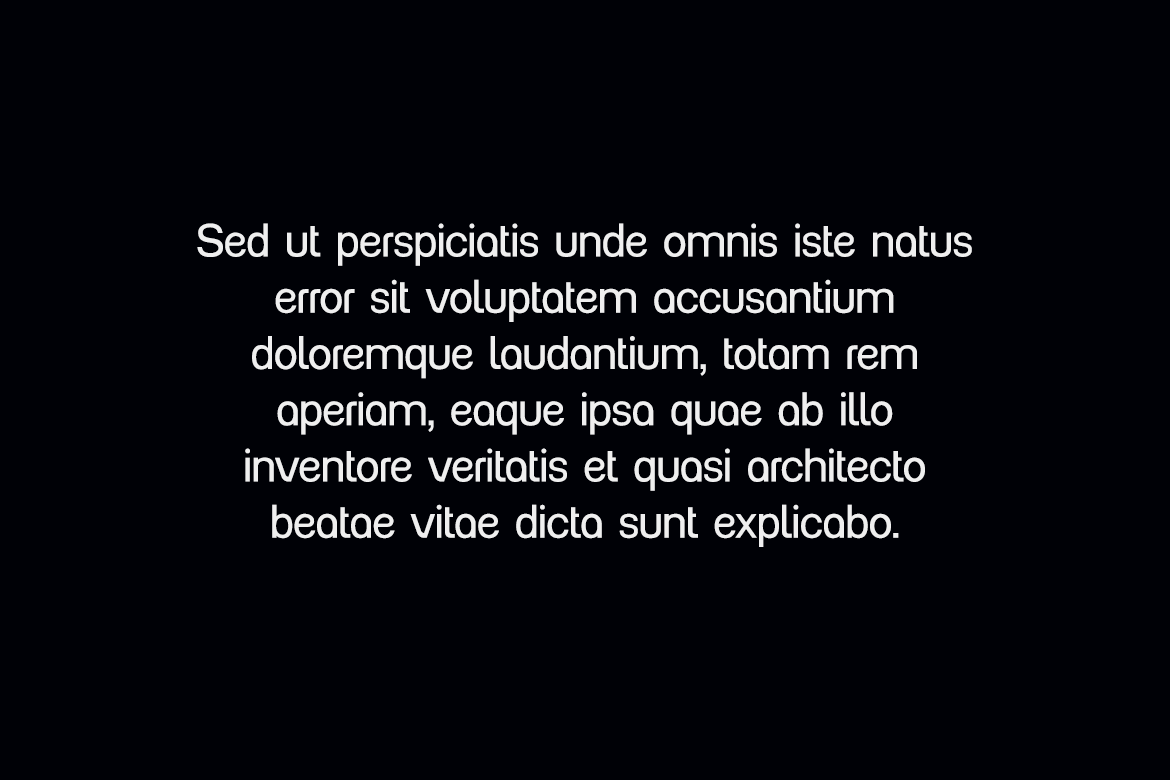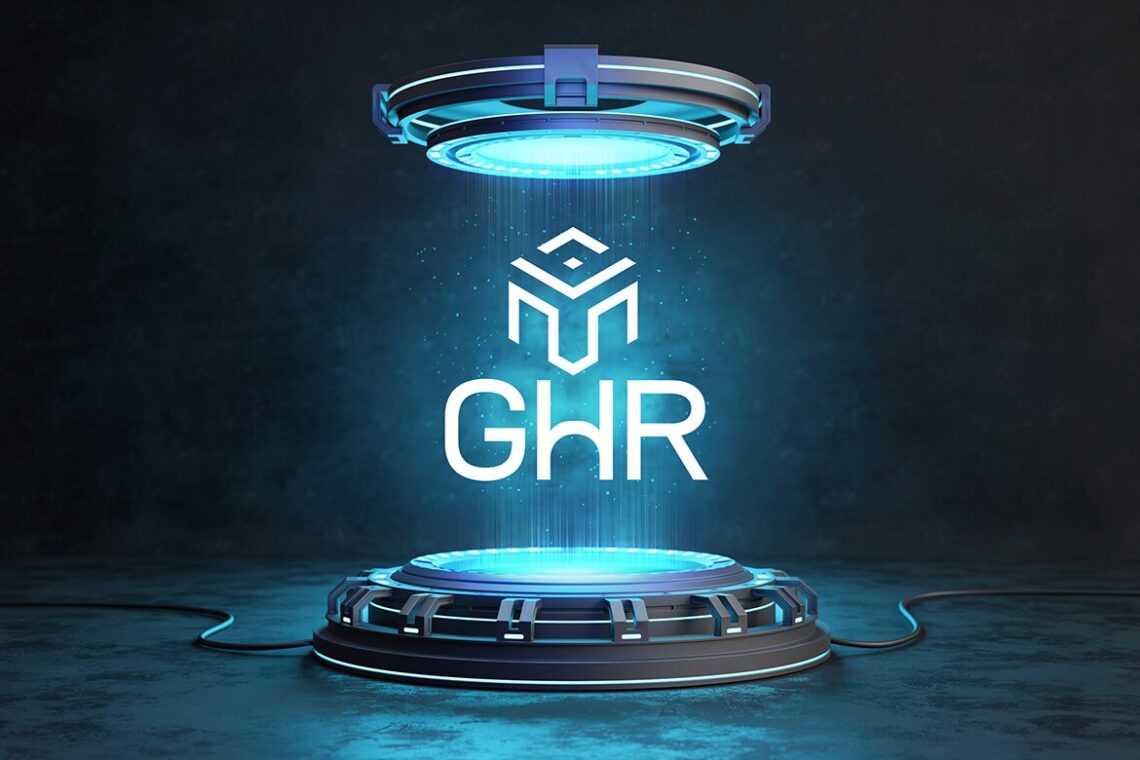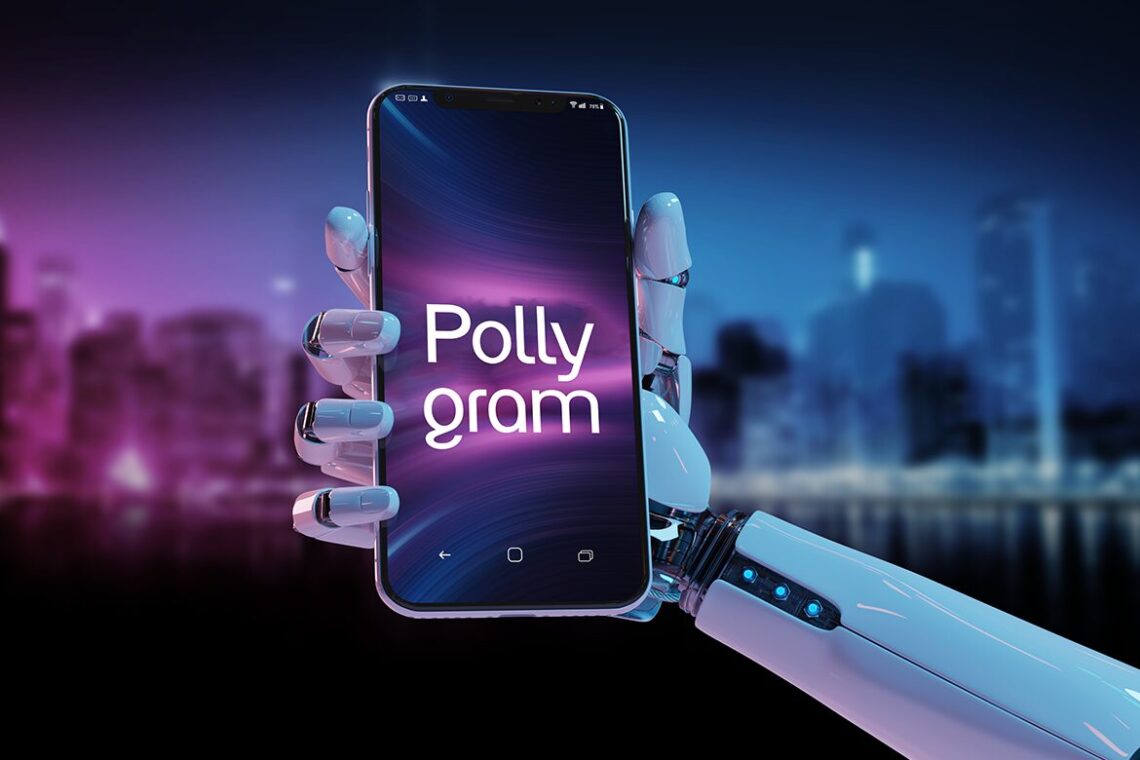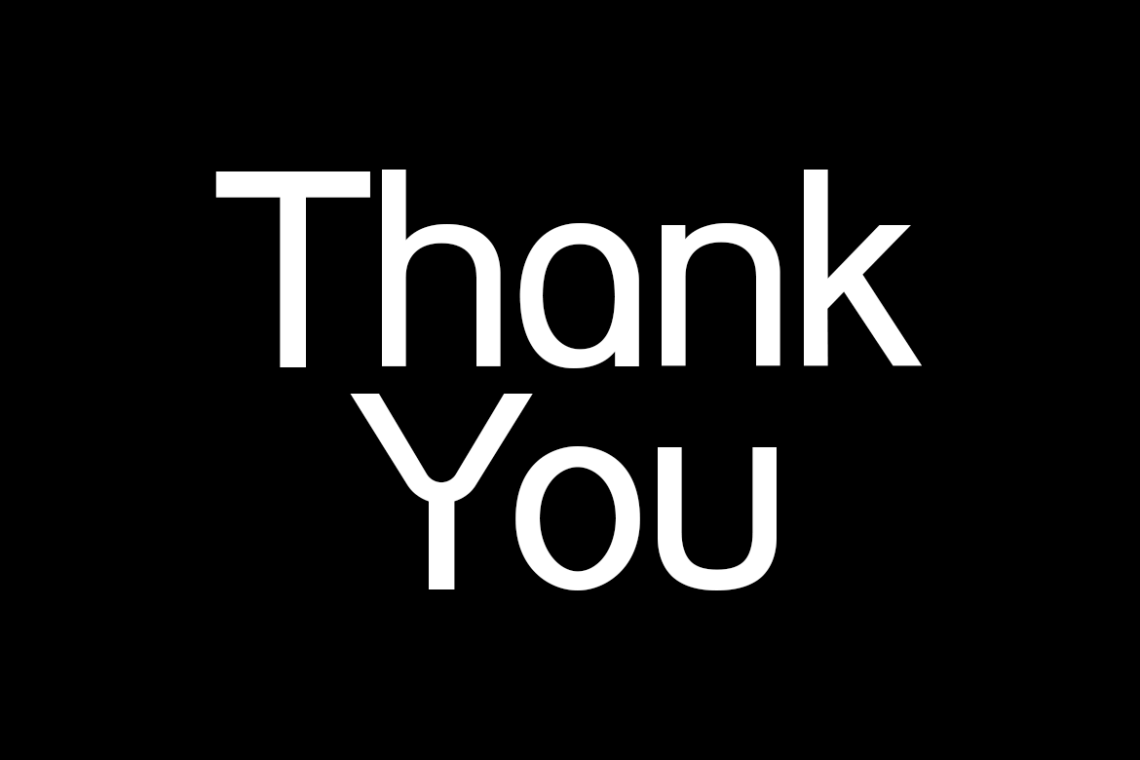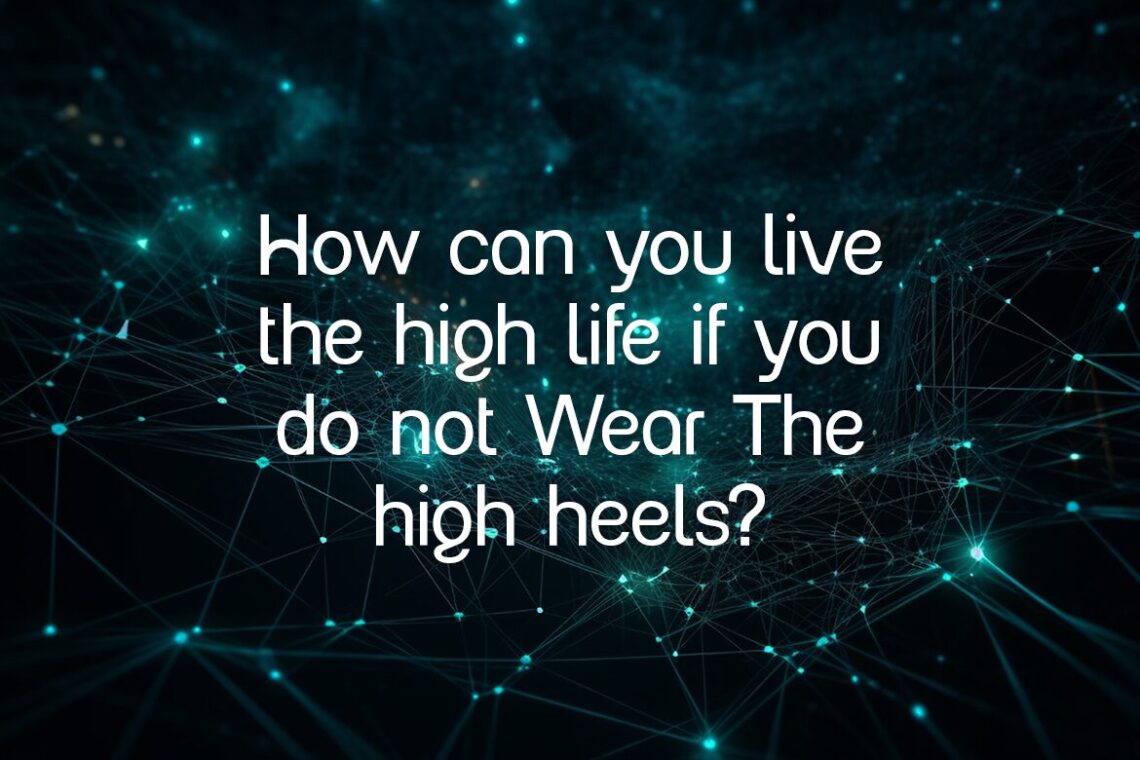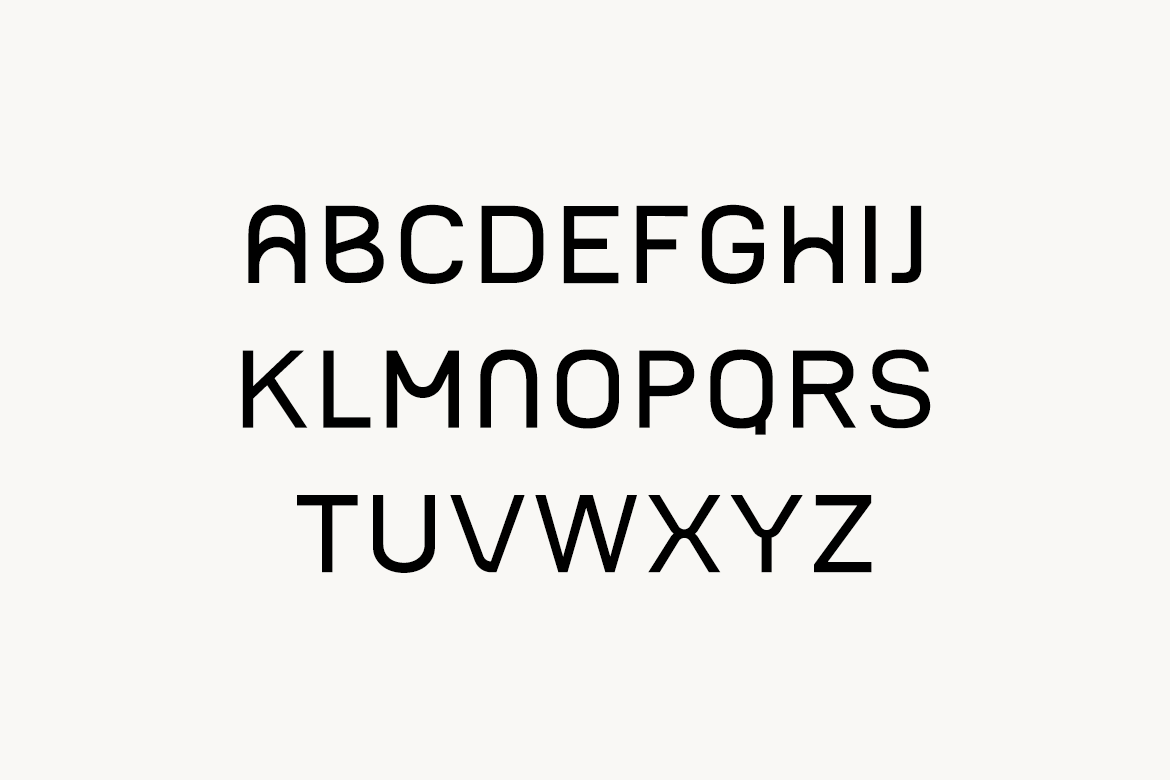
Pollygram Modern Technology Sans Serif Font
Pollygram is a modern technology sans serif from UI Creative. It is built from round, even strokes, and a few unusual letters give it a futuristic edge: the capital A and N are drawn as arches, so the N looks like a tall lowercase n, and the lowercase g swings its tail out into an open hook. Headlines look engineered rather than plain, and short lines of body text stay readable.
Use it for tech brands and startups, app and website screens, gaming and esports titles, AI and robotics themes, event posters and product launches. The previews show “Theno Waves” next to a robot hand and a glowing ring, a “Mongraph Screen” laptop, “The Robot” over a VR scene and a “GHR” logo on a hologram pedestal.